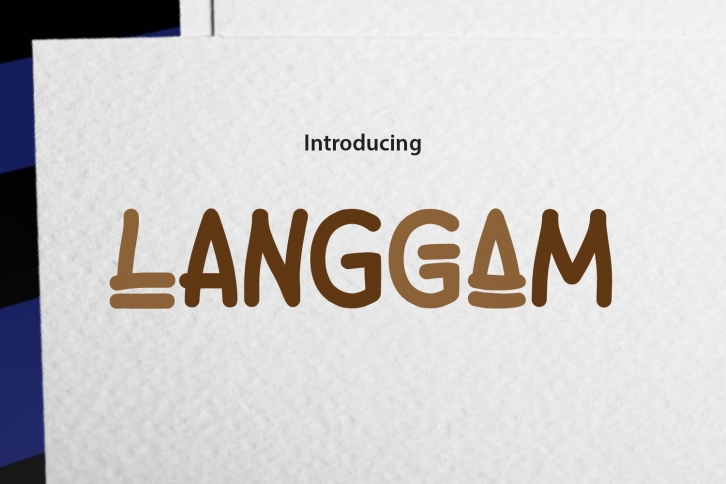
LANGGAM is a great font that was designed by daonlyaan. Imagine the amount of combinations you can create using this font! The archive is 2.71 MB and it was released on March 26, 2020. LANGGAM looks beautiful on wedding invitations, greeting cards, logos, posters, labels, t-shirt designs, logos, business cards and is perfect for use in ink or watercolor works, fashion, magazines, packaging and food menus, children's books and more!